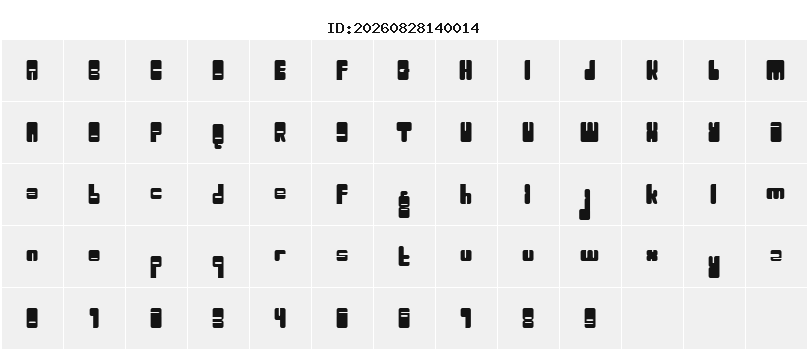
Toggle Preview
• Font Name: Toggle
• Full Font Name: Toggle
About Toggle.ttf
Toggle.ttf is a modern, elegant sans-serif font designed for ultimate readability and visual harmony. Perfect for branding, headlines, web design, and print materials.